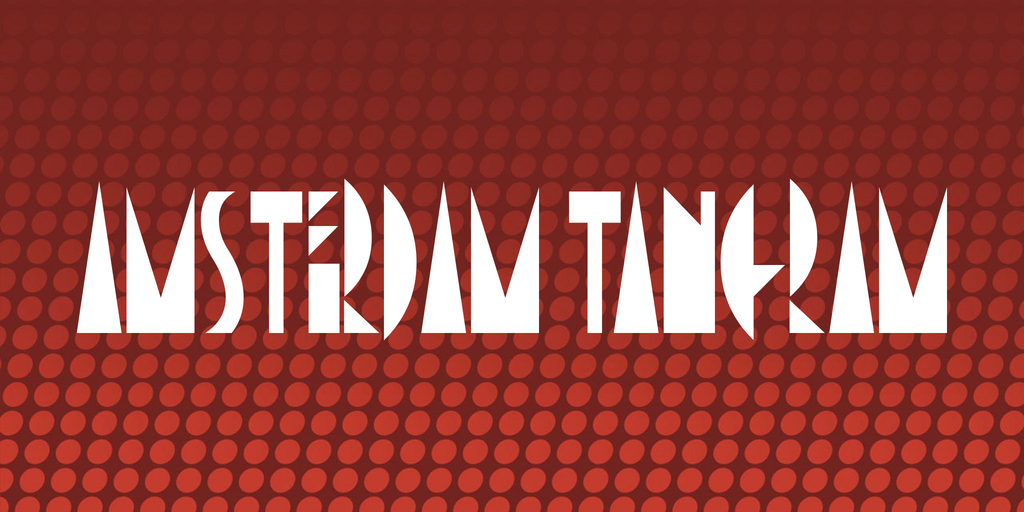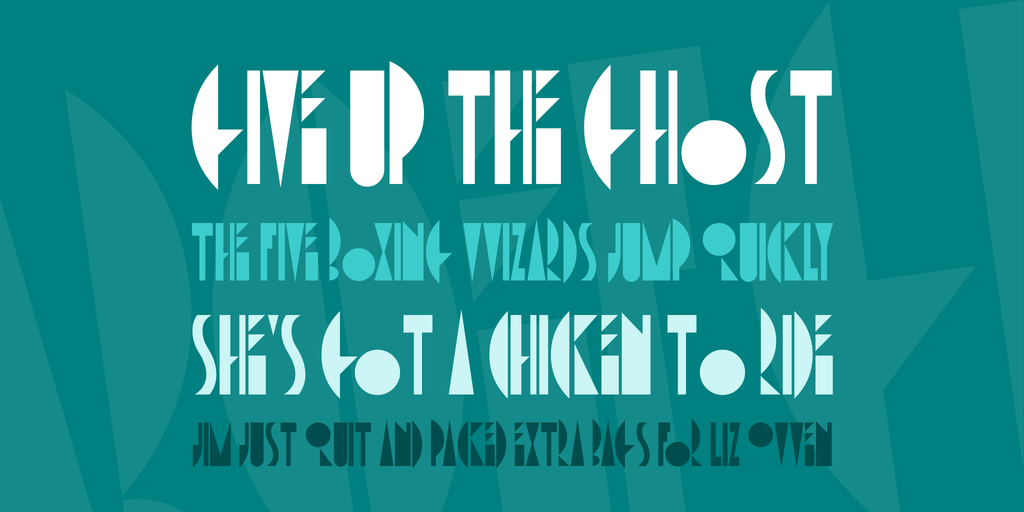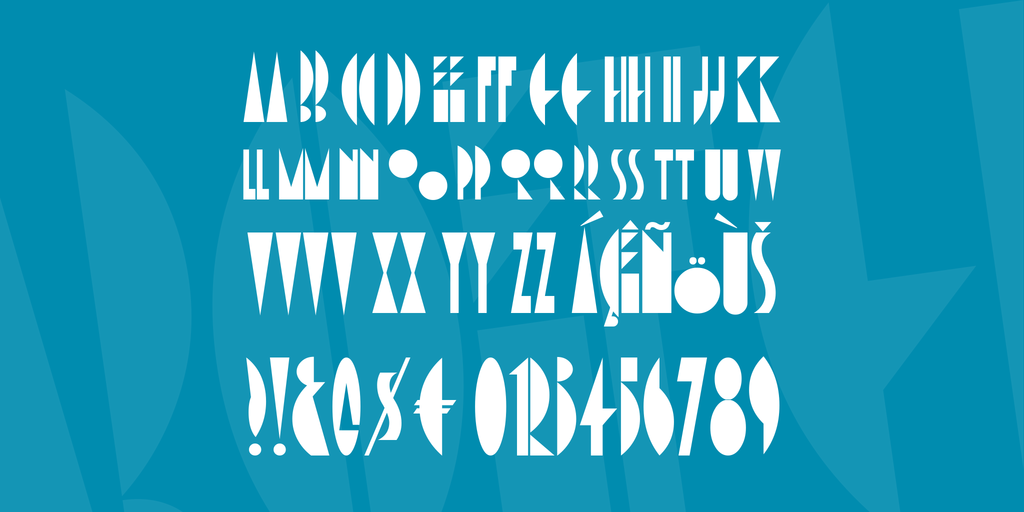
Amsterdam Tangram Font
The first of several fonts based on the whacked-out lettering of Dutch comic-book artist Joost Swarte. Balanced precariously on the cusp between legibility and illegibility, this font has limited uses, but is quite visually intriguing.